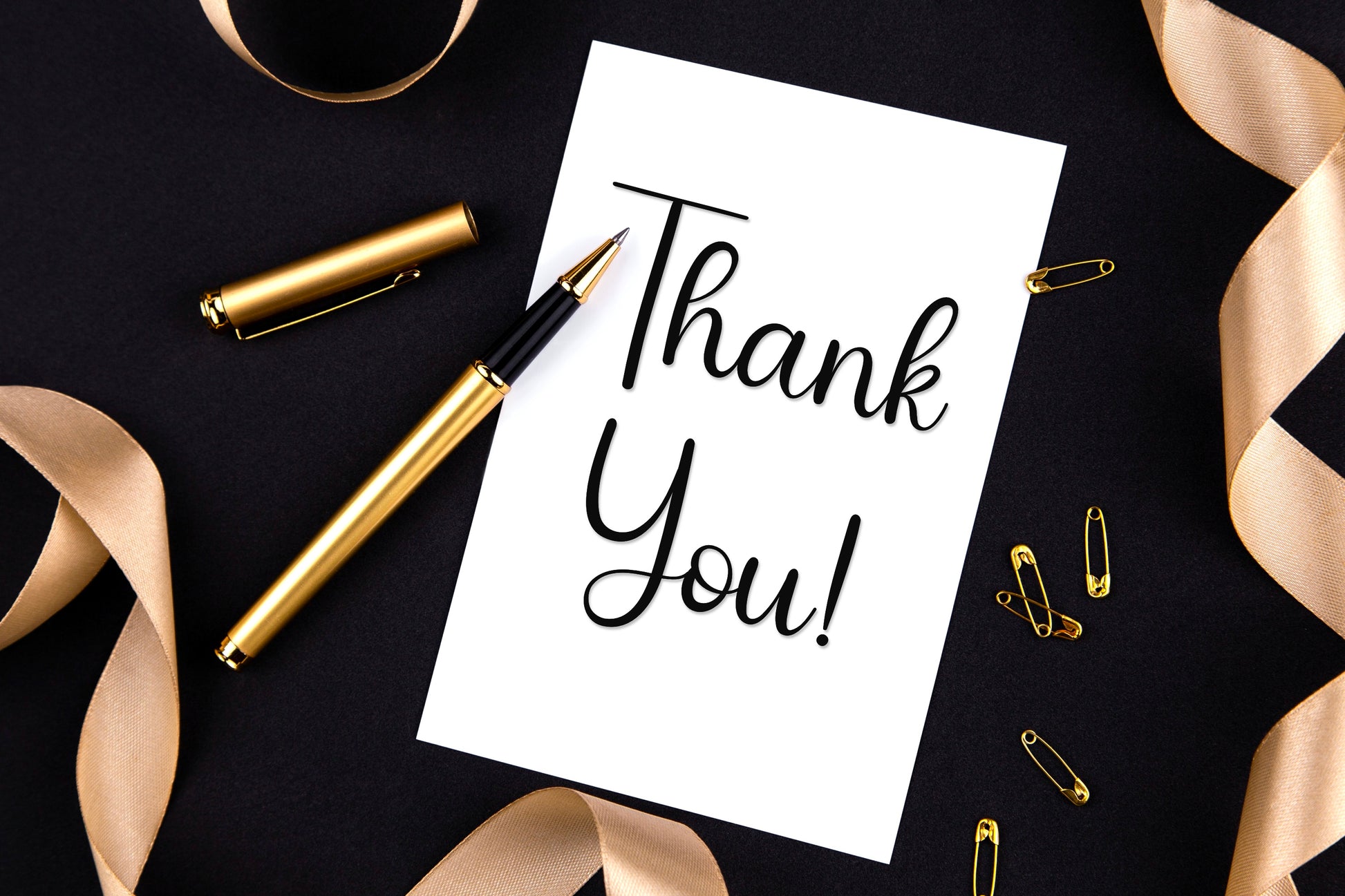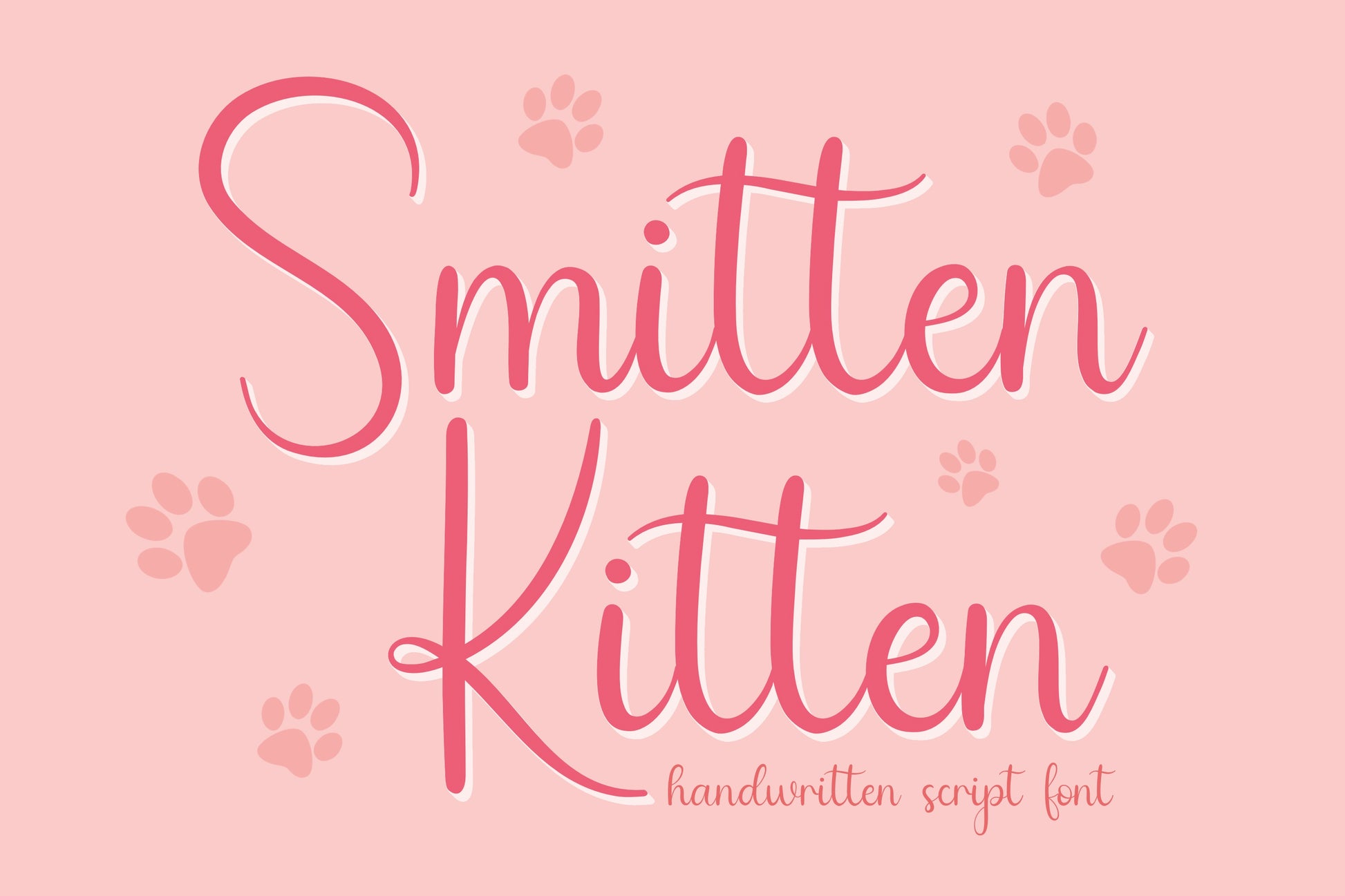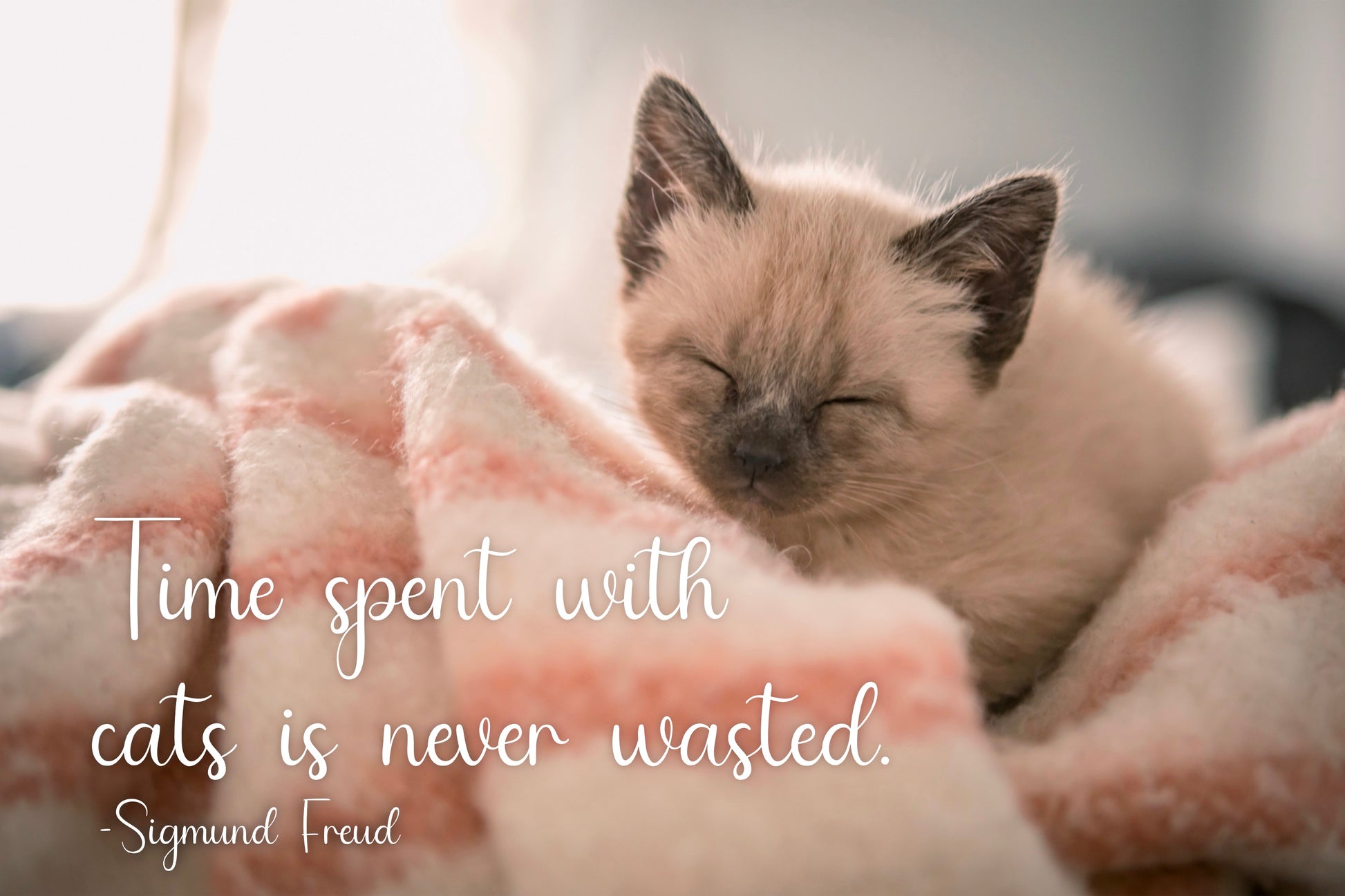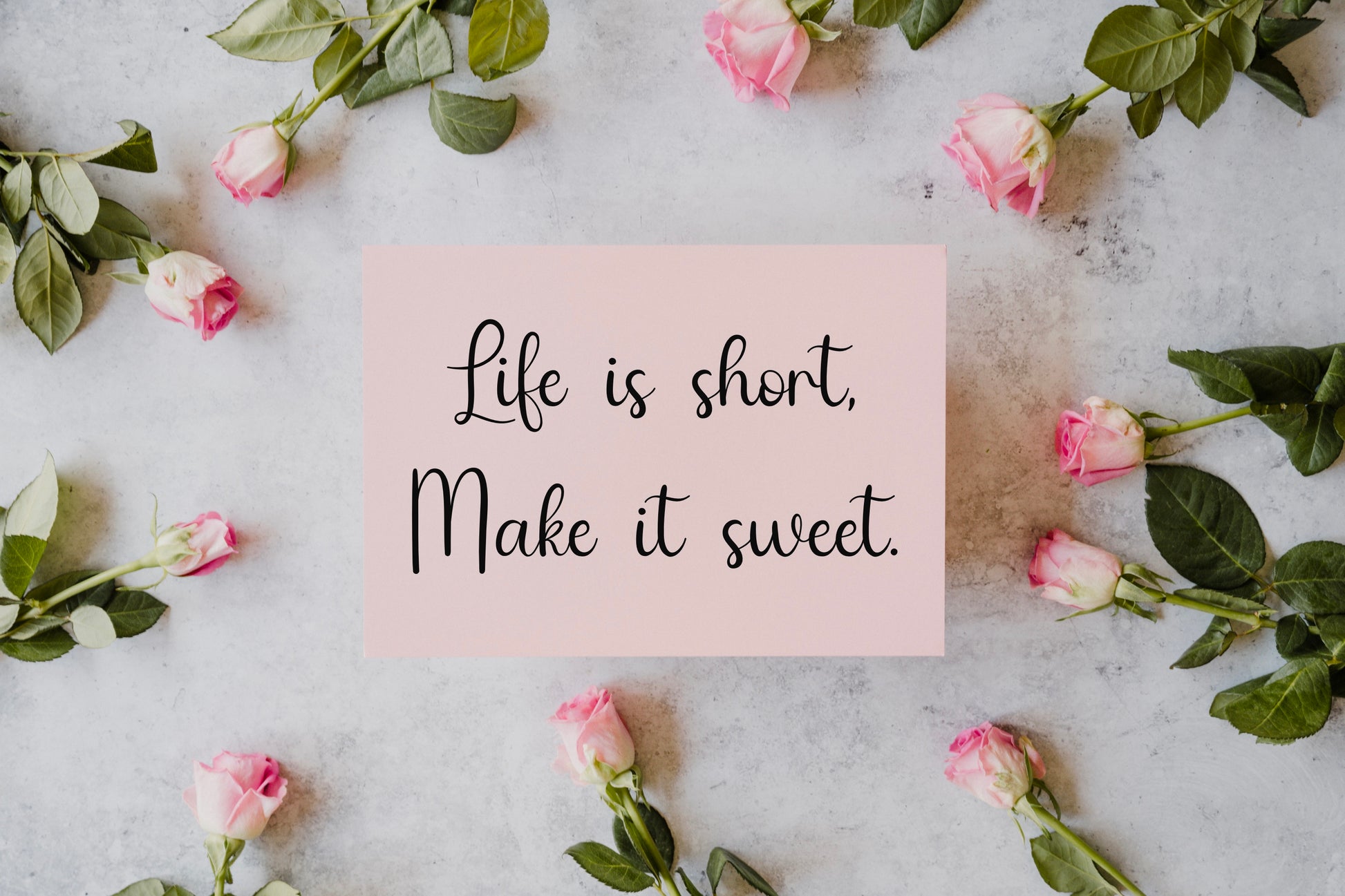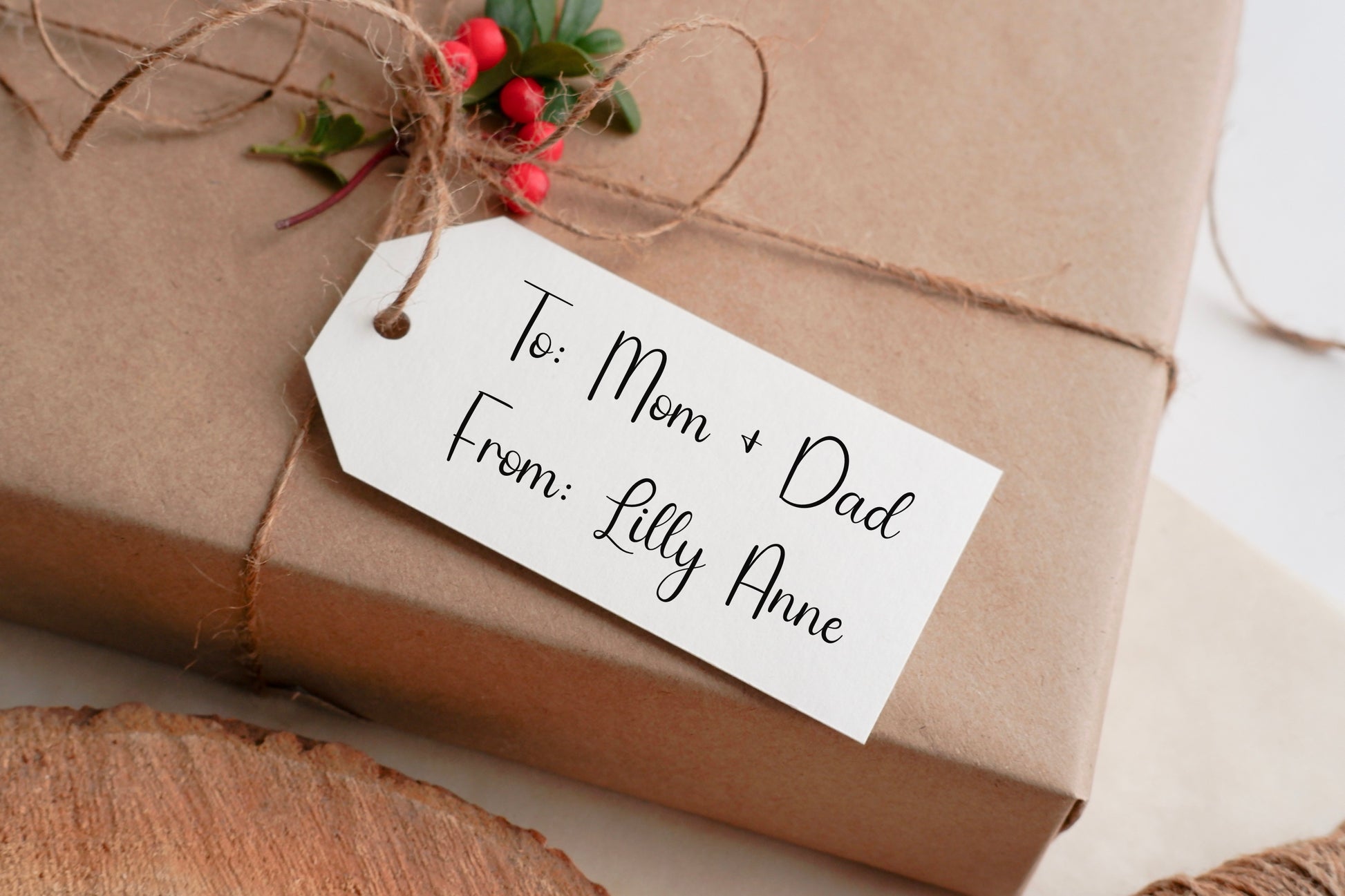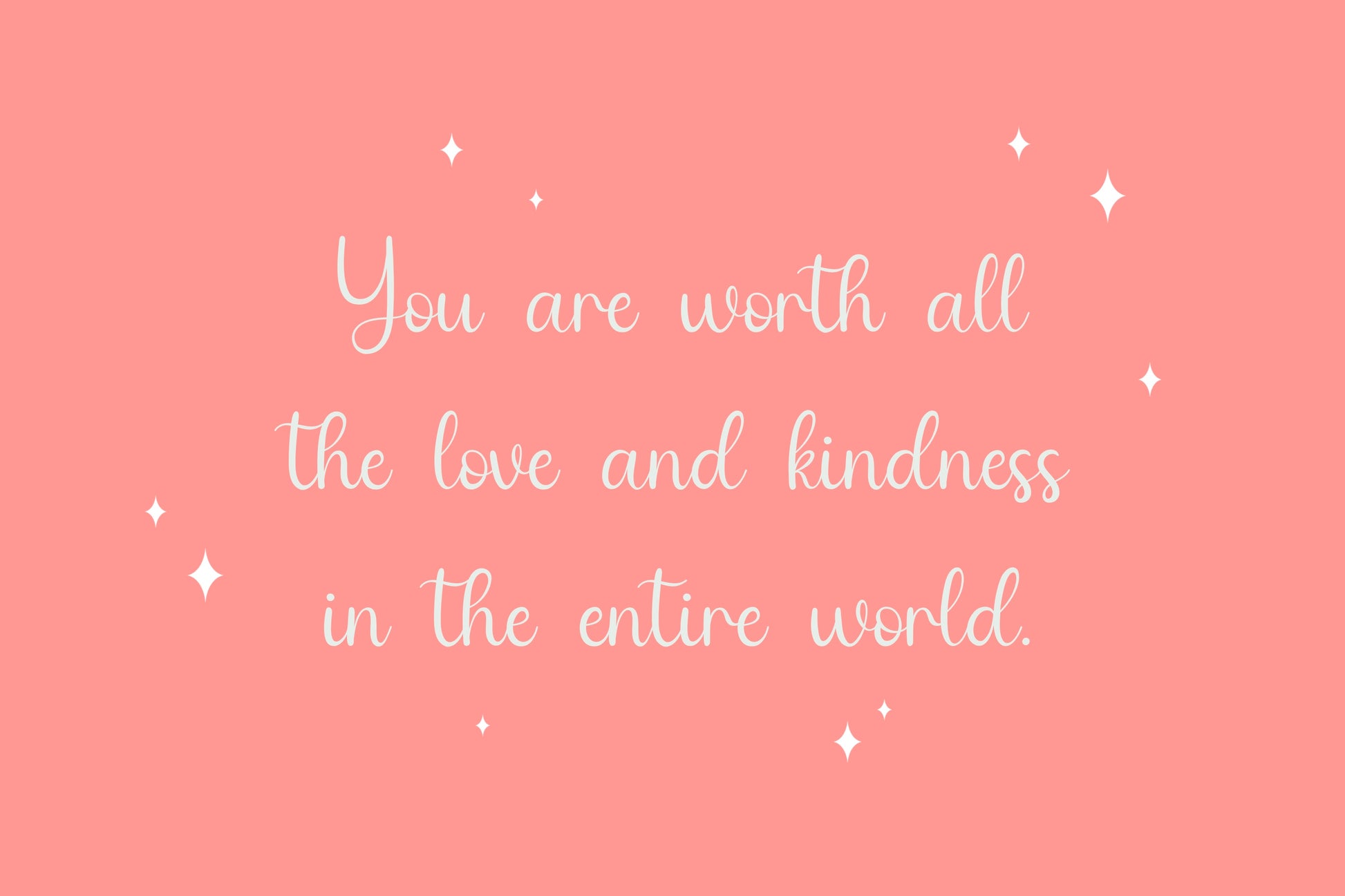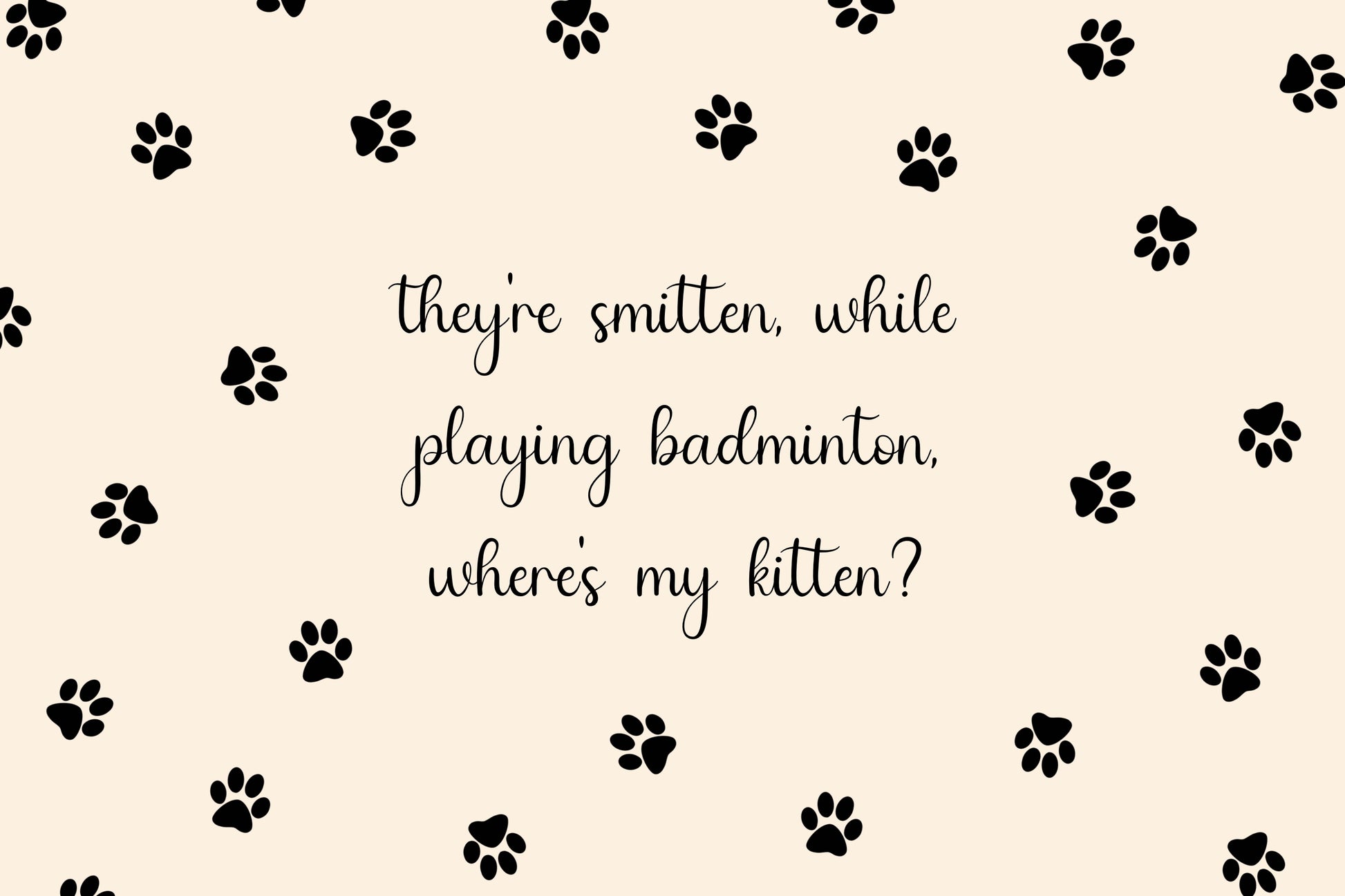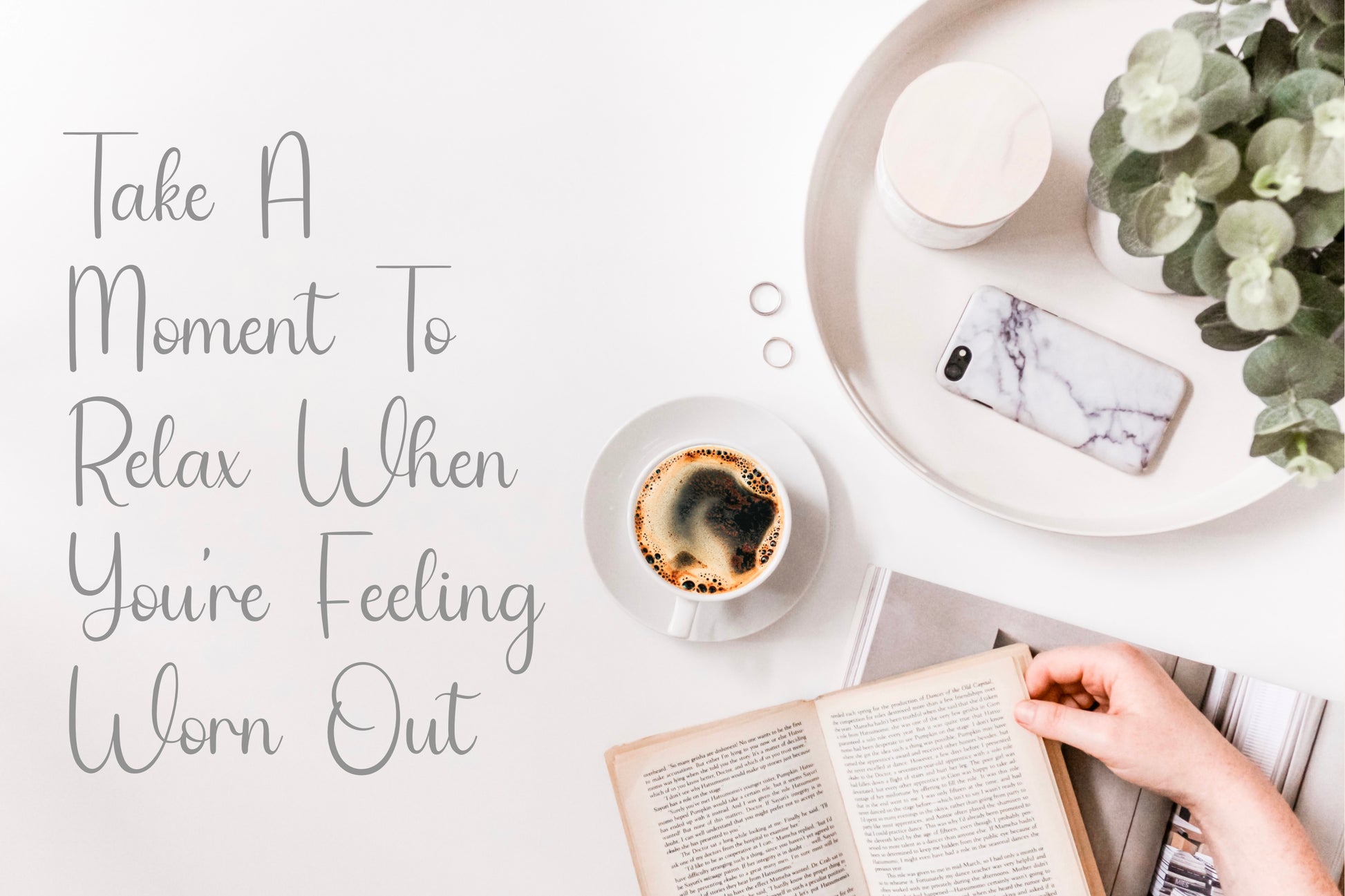
Smitten Kitten Handwritten Script Font
Introducing the Smitten Kitten handwritten/hand drawn font! This thin, elegant handwritten script font with lovely, large capitals is perfect for any project. It would be lovely for invitations, branding, logos, posters, magazines, quotes, posters, stickers, t-shirts, and anything else you can think of for endless, creative designs!